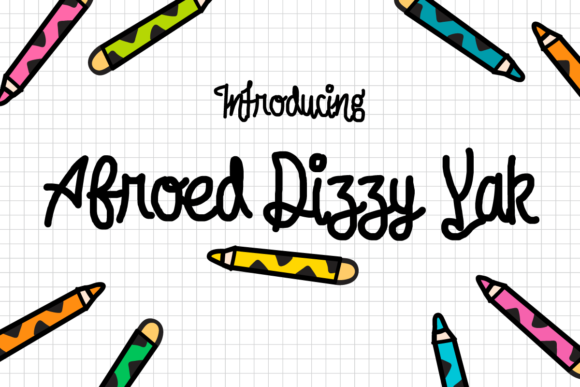
The Perfect Font for a Whimsical Touch
Have you ever been working on a design project, pouring your heart and soul into it, only to feel like something is missing? That’s when inspiration strikes, and you remember a font that can bring your design to life. For many designers, that font is the Afroed Dizzy Yak Font.
This fun and playful typeface is designed to add a whimsical touch to any design project. Whether you’re creating a children’s book, a marketing campaign, or a social media graphic, the Afroed Dizzy Yak Font is the perfect addition to give your design a lighthearted and engaging feel. With its unique character and versatility, this font is a valuable tool for designers looking to add a little extra magic to their work.
Afroed Dizzy Yak Font Key Features
- Unique Characteristics: The Afroed Dizzy Yak Font features a unique blend of African and psychedelic elements, making it ideal for designs that require a bold and eye-catching aesthetic.
- Character Set: The font includes a comprehensive character set, including Latin, Cyrillic, and Greek scripts, as well as a range of special characters and symbols.
Afroed Dizzy Yak Font Review
As a designer, I was excited to try out the Afroed Dizzy Yak Font, and I have to say it’s a unique addition to any typography collection. Here are my thoughts.
- ✨ The font’s bold and quirky personality makes it perfect for bold statements and headlines.
- ✨ The Afroed Dizzy Yak Font is highly customizable, allowing users to adjust weights, widths, and styles to fit their design needs.
- ✨ The font’s eclectic mix of styles and shapes adds visual interest and creates a sense of playfulness.
- ⚠️ The font’s irregularities can sometimes make it difficult to read, especially in body text.
- ⚠️ The font’s customizability can also be a double-edged sword, as it may lead to inconsistent designs if not used carefully.
- ⚠️ Some users may find the font’s eccentricities to be distracting or overwhelming.
The Afroed Dizzy Yak Font is a great choice for designers looking to add some personality to their designs. While it may not be the most practical font for body text, it’s perfect for bold statements, headlines, and other design elements where a quirky touch is needed.
Use Afroed Dizzy Yak to add a unique touch to your designs, such as headings, titles, or quotes.
Use Afroed Dizzy Yak to add a touch of personality to your presentations or documents.
Afroed Dizzy Yak is perfect for:
- Designing posters and flyers for music festivals or events.
- Creating social media graphics and ads.
- Adding a unique touch to presentations and documents.
The Afroed Dizzy Yak Font is a unique and quirky font that adds a touch of whimsy to designs. However, sometimes it’s necessary to explore alternative fonts that offer similar characteristics or unique qualities. Here are a few options:
Great Vibes Font is a beautiful, hand-drawn font that features a mix of modern and vintage elements. It’s ideal for use in designs where a relaxed, friendly tone is desired. Compared to Afroed Dizzy Yak Font, Great Vibes has a more refined and elegant feel, making it suitable for a wider range of applications.
Pacifico Font is a modern script font that exudes a sense of relaxation and calmness. It’s perfect for use in designs that require a soothing, beachy vibe. Compared to Afroed Dizzy Yak Font, Pacifico has a more subtle and understated feel, making it suitable for designs where a touch of elegance is desired.